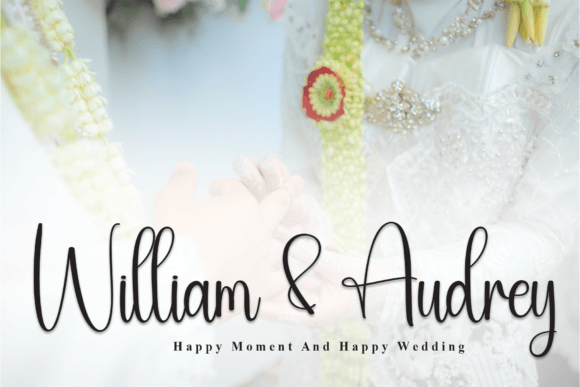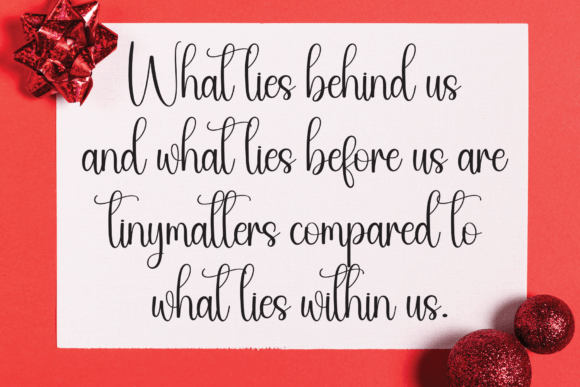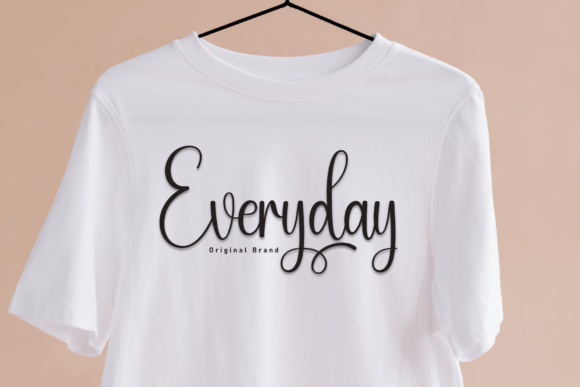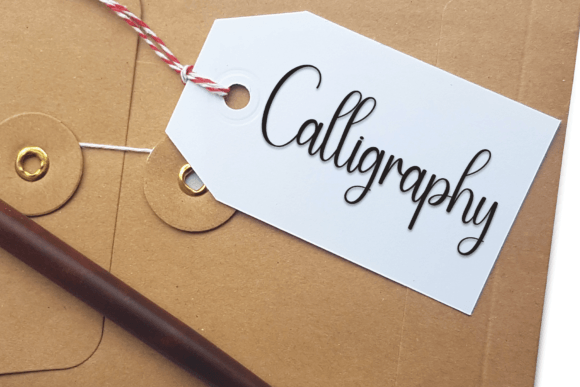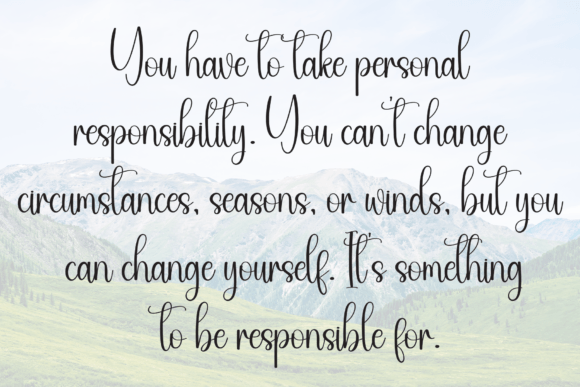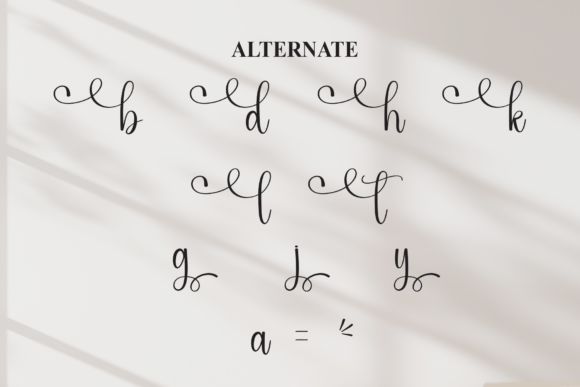
Introducing Everyday Font: The Timeless Handwritten Font for Stunning Designs
Are you a designer or crafter looking for the perfect font to elevate your creative projects? Look no further than Everyday Font, a lovely and timeless handwritten font that is sure to make your designs come alive! With its unique and beautiful touch, every letter is a work of art that will add a touch of elegance and sophistication to your logos, branding, and quotes.
The Perfect Choice for Eye-Catching Logos and Branding
Everyday Font is the ideal choice for creating eye-catching logos and branding that will set your business or personal project apart from the rest. Its handwritten style gives your designs a personal and approachable feel, while its timeless elegance ensures that your creations will remain relevant for years to come. Whether you’re looking to create a logo for a new business, rebrand an existing one, or simply add some personality to your designs, Everyday Font is the perfect choice.
What Sets Everyday Font Apart
So, what makes Everyday Font so special? For starters, every letter has a unique and beautiful touch that sets it apart from other fonts. The font’s handwritten style is both elegant and playful, making it perfect for a wide range of design applications. Additionally, the font is highly versatile, allowing you to use it for everything from logos and branding to quotes and social media graphics.
Endless Design Possibilities with Everyday Font
With Everyday Font, the design possibilities are endless! Here are just a few ideas to get you started:
- Create stunning logos and branding for businesses, events, or personal projects
- Design eye-catching quotes and social media graphics that will grab attention
- Add a personal touch to your website or blog with custom typography
- Use the font for crafting, scrapbooking, and other paper crafts
- Experiment with different colors, textures, and patterns to create unique designs
Why Designers and Crafters Love Everyday Font
Designers and crafters love Everyday Font for its unique combination of elegance and playfulness. The font is easy to read and works beautifully in a variety of design applications. Additionally, the font’s handmade style gives designs a personal and authentic feel that is hard to replicate with other fonts.
Tips for Getting the Most Out of Everyday Font
Here are a few tips for getting the most out of Everyday Font:
- Experiment with different font sizes and colors to add depth and interest to your designs
- Pair the font with other design elements, such as images or graphics, to create visually appealing compositions
- Use the font consistently across different design applications to create a cohesive brand identity
- Don’t be afraid to get creative and try new things – Everyday Font is a versatile font that can be used in many different ways!
In conclusion, Everyday Font is a timeless and lovely handwritten font that is perfect for designers and crafters looking to add a touch of elegance and sophistication to their designs. With its unique and beautiful touch, every letter is a work of art that will make your designs come alive! Whether you’re creating logos, branding, quotes, or social media graphics, Everyday Font is the perfect choice.